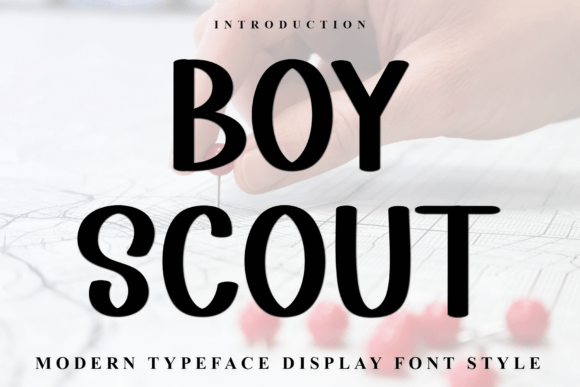
The Sweet Charm of Boy Scout Font: A Designer’s Delight
I’ll never forget the time I was working on a project for a local scouting organization. I had to create a poster that would appeal to both kids and parents, and I was struggling to find the right font. That’s when I stumbled upon Boy Scout font, and it was love at first sight! 💕 The natural, handwritten style of this font immediately caught my attention, and I knew I had found the perfect fit for my project.
- ✨ Unique and friendly vibe: Boy Scout font has a one-of-a-kind personality that sets it apart from other fonts.
- ✅ Highly versatile: This font can be used for a wide range of designs, from posters and flyers to digital graphics and social media posts.
- 💯 Easily readable: Despite its handwritten nature, Boy Scout font is surprisingly easy to read, even at smaller sizes.
While Boy Scout font is an excellent choice for many designs, there are a few things to keep in mind:
- 🤔 Limited formal use: Due to its informal, handwritten style, Boy Scout font may not be the best choice for formal or professional designs.
- ⚠️ Some letter spacing issues: In certain situations, the letter spacing may need to be adjusted to achieve optimal readability.
The Story Behind Boy Scout Font
While the origins of Boy Scout font are unclear, it’s likely that it was designed with the intention of creating a friendly, approachable font that would appeal to a wide range of designers and audiences. The font’s unique style and versatility have made it a popular choice for various design projects.
Q: Is Boy Scout font suitable for body text?
A: While Boy Scout font is easy to read, it’s best suited for headings and titles. For body text, a clearer font may be more suitable.